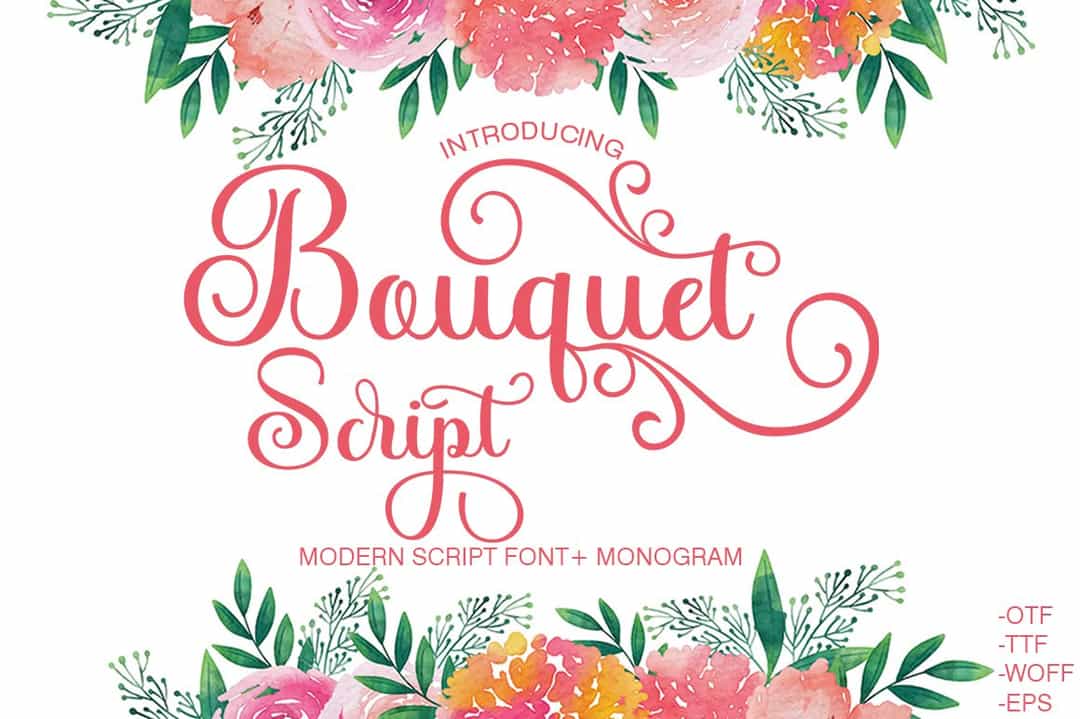
Bouquet Script is an eye-catching modern calligraphy font with an unconventional baseline, perfect for fashionable and feminine cards such as wedding invitations, thank-you notes, greeting cards and business cards. Also perfect for logos and business cards; watercolor ink versions also included as standard! Contains initial/terminal letters as well as alternates language support!